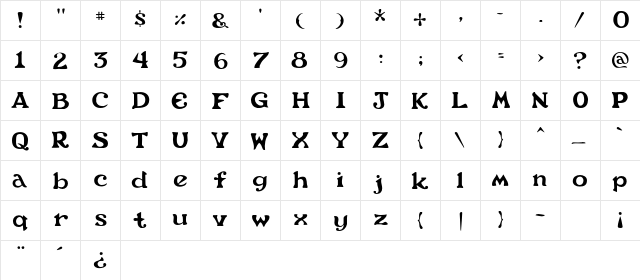
Flower Power Regular
| Foundry | Chank Co |
Design Context for Flower Power Typeface
Flower Power has the bold swagger of sports branding: strong, assertive letterforms designed to dominate headlines and jerseys alike.
Built for sports team identities, athletic apparel, event posters, and high-energy promotional material.
Pro Tip: Flower Power thrives on contrast — try it large, bold, and tight against a clean background for maximum visual impact.